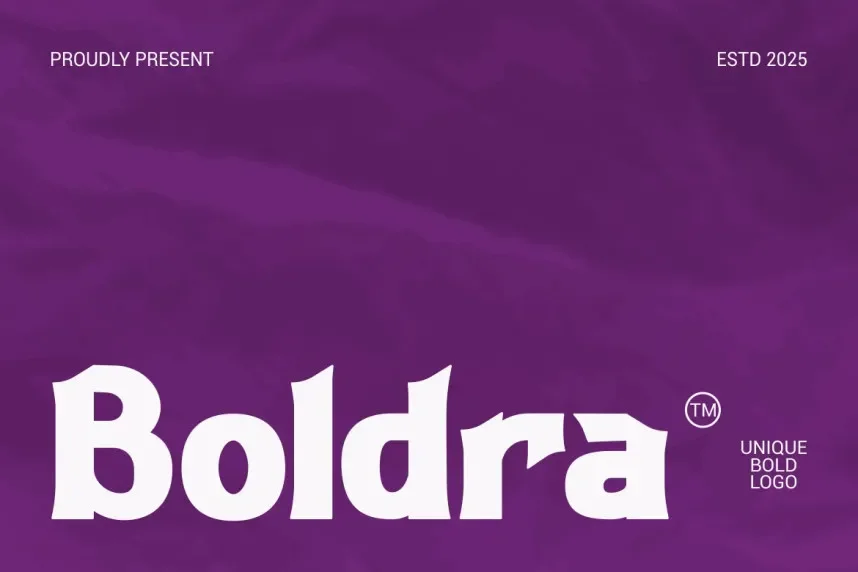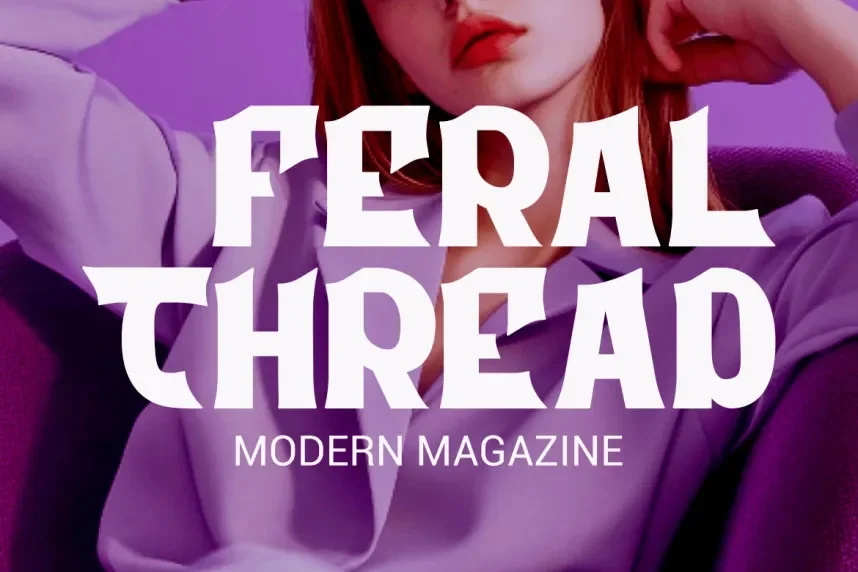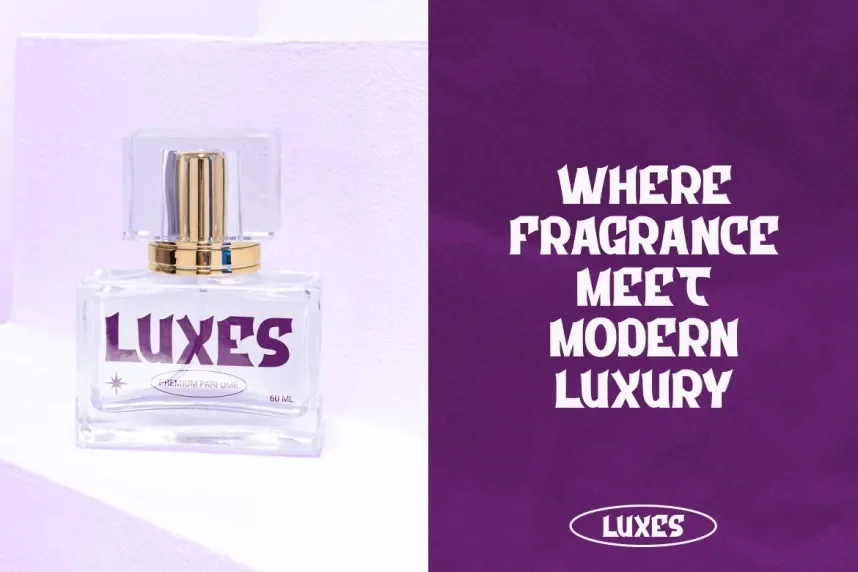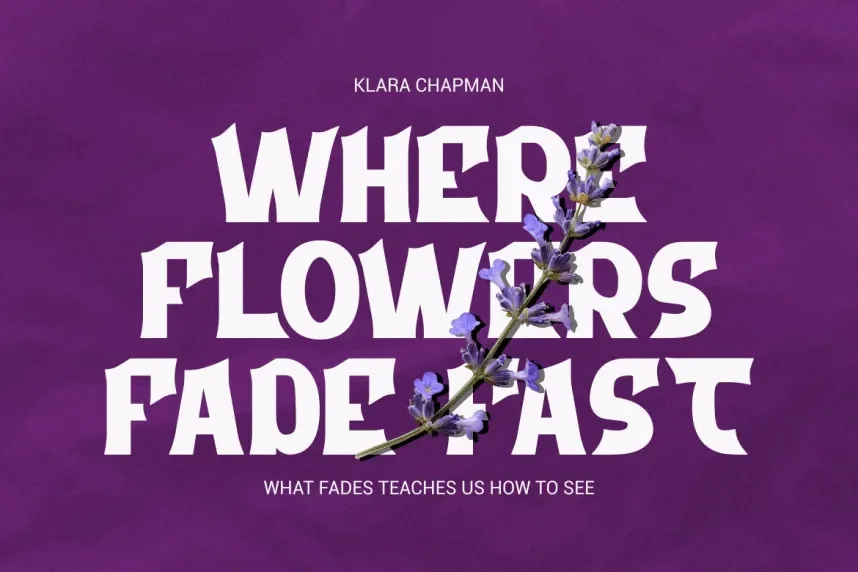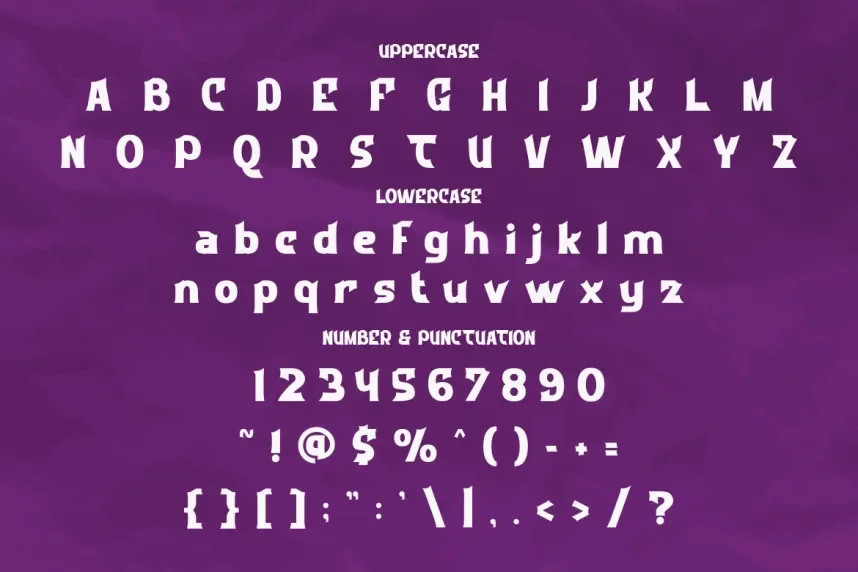
Boldra Font solves visibility issues in layouts where headings must stand out clearly from supporting content. Designers often need a bold typeface that maintains clarity without complex decoration.
Boldra Font is a display-oriented sans-serif with thick strokes, firm letter construction, and controlled spacing. The letterforms emphasize weight and structure, helping text remain legible at large sizes.